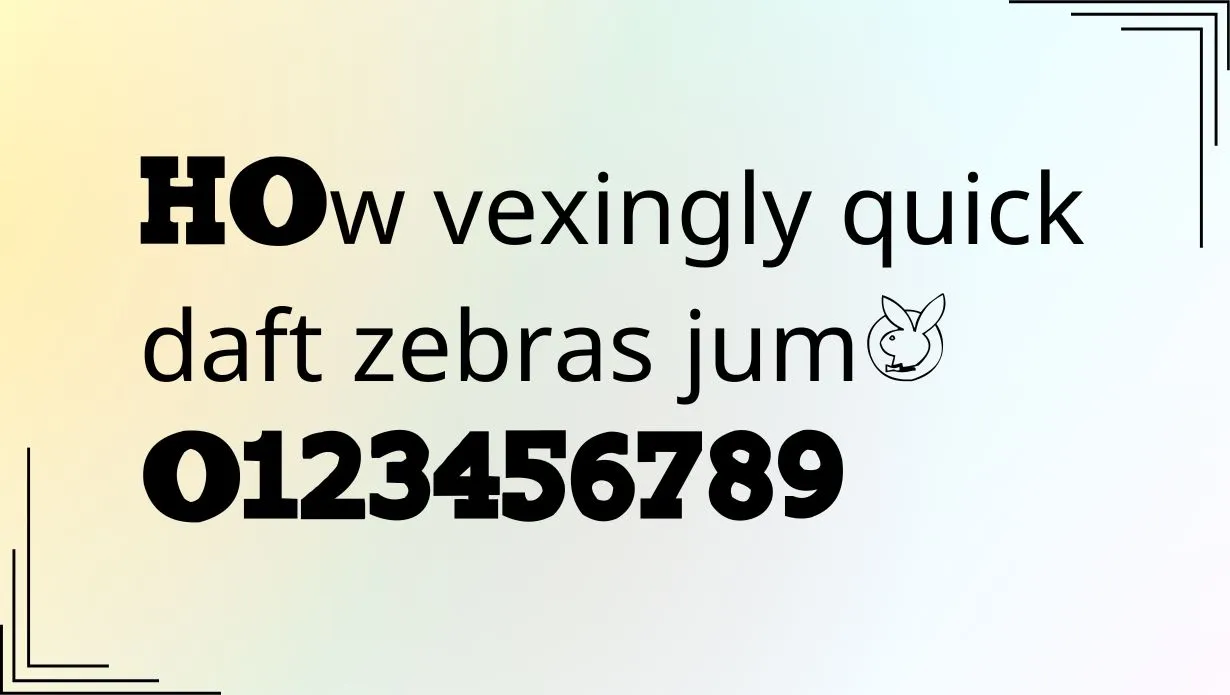
Playboy font is a simple, stylish display typeface that is perfect for any project that needs a touch of class. It was developed and published by Sharkshock Fonts. It’s free for personal use. With its clean lines and modern look, the Playboy font is sure to make your text stand out.
The Playboy font is a classic, elegant font that exudes sophistication. It is perfect for any formal or professional document and adds a touch of class to any project. The Playboy logo is one of the most iconic and instantly recognizable logos in the world.
Playboy is a classic font that has been around for decades. It is elegant and stylish, yet still playful and fun. It is perfect for any project that needs a touch of class and sophistication.
Who Used Play Boy Font?
It is perfect for any project that needs a clean, modern look. The font is a great font for those who want a sleek and stylish look. It is perfect for headlines and titles. The font is very easy to read and looks great on any website or document.
Due to its heavy, bold structure, the Playboy font is ideal for creating attention-grabbing text designs. For instance, if you design logos, branding materials, headlines, and titles with this font, it will impact the audience.
Also, cover pages of books and magazines require a strong visual, so the Playboy font is applicable there too. Besides, you can design posters, flyers, banners, apps, cards, emblems, advertisements, and more using this font.
Since the original Playtoy font is connected with the world-famous Playboy magazine, it will also be a great choice to develop titles for fashion-related content and luxurious things.
Play Boy Font Family Appearance
Family of Play Boy Font
- Playboy Bold
- Playboy Italic
- Playboy Condensed
- Playboy Extended
- Playboy Alternate
- Playboy Inverse
What is the history of the Playboy Font?
The Font was created in 1954 by Art Paul, the magazine’s first art director.
What are the different variations of the Playboy Font?
The Font comes in all versions like Regular, Italic, and Bold versions.
What are the benefits of using the Playboy font?
The font can add a touch of fun and excitement to any document or design.